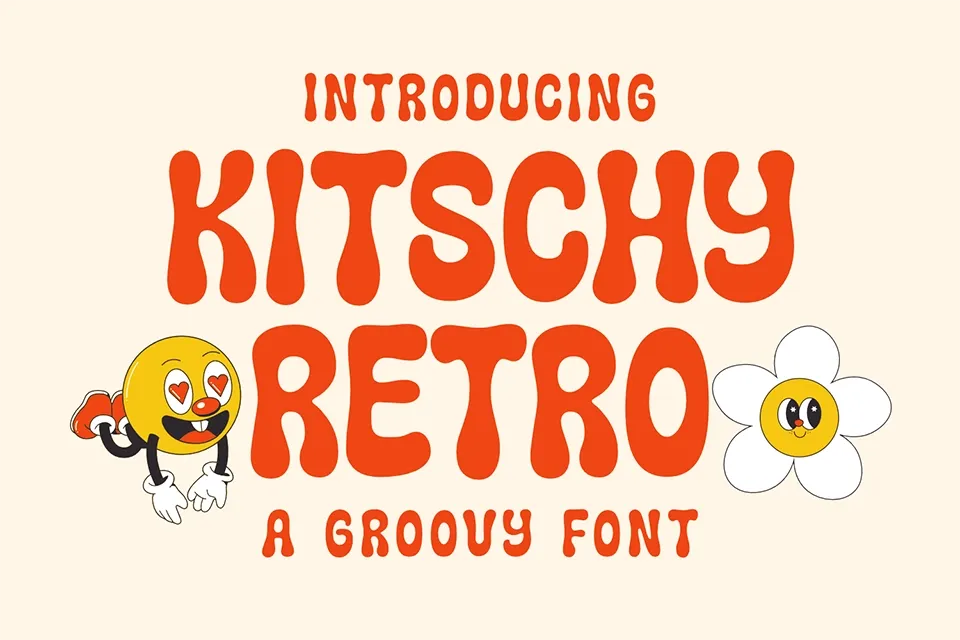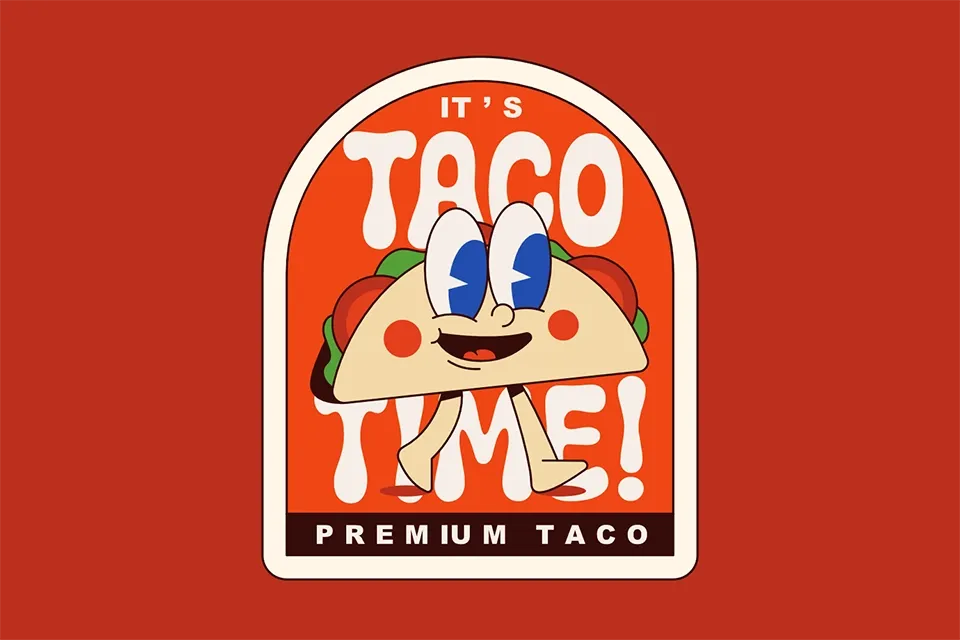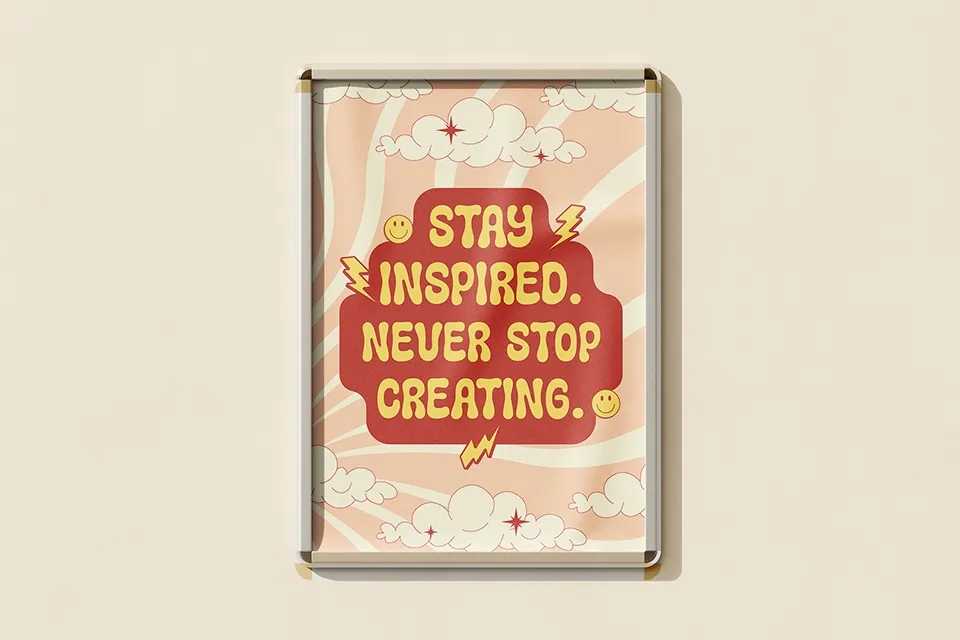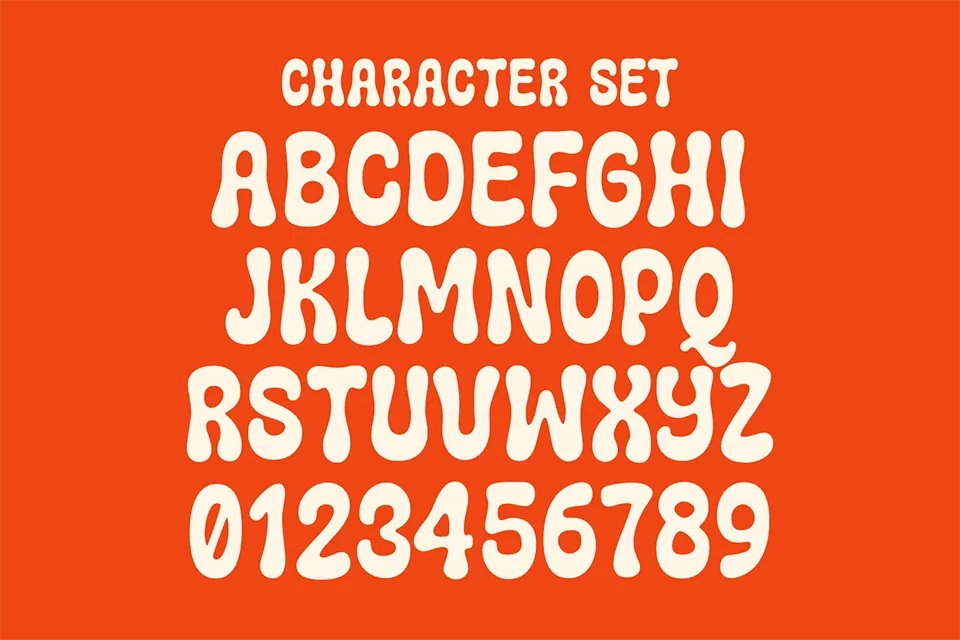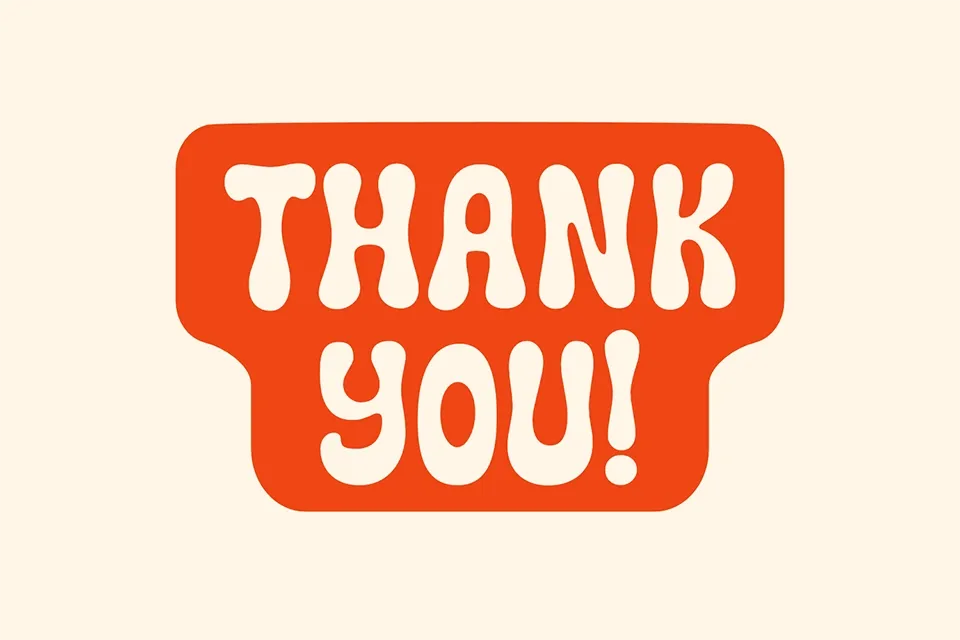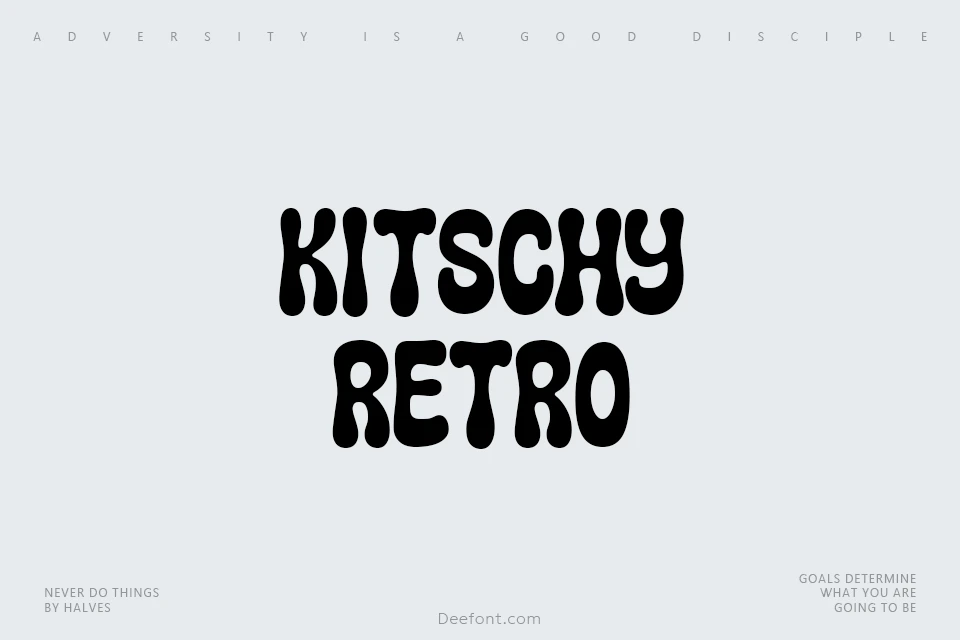
Kitschy Retro Font
Step back in time with Kitschy Retro Font, a groovy and playful typeface inspired by the vibrant aesthetics of the 60s and 70s. With its bold, bubbly letters and funky vibe, this font is perfect for adding a nostalgic charm to your designs. Whether you’re creating posters, logos, invitations, or social media graphics, Kitschy Retro Font brings a sense of fun and personality to any project. Its unique style captures the essence of retro pop culture, making it ideal for vintage-inspired themes or modern designs with a playful twist. Let Kitschy Retro Font transport your creativity to a groovier era!